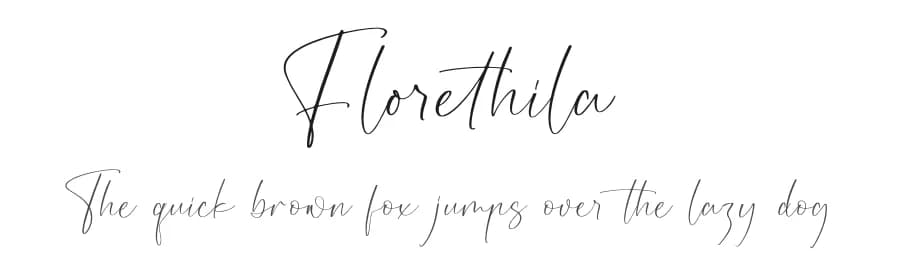
About Florethila Font
Florethila Font is a script font that shines as a display or heading face. Pair it with a clean sans-serif or serif font for body text β the contrast creates a clear hierarchy while the two styles stay balanced and easy to read.
Florethila Font